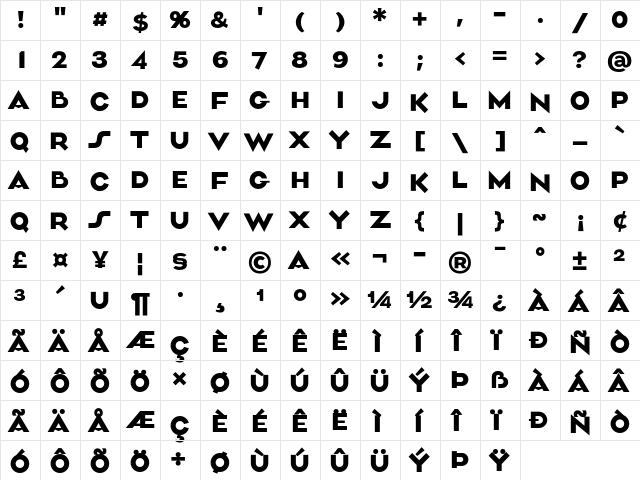
Aliment Medium
| Foundry | Mans Greback |
| Designer | Mans Greback |
Design Context for Aliment Typeface
Aliment is a composed and adaptable typeface that performs quietly and consistently across a wide range of design contexts.